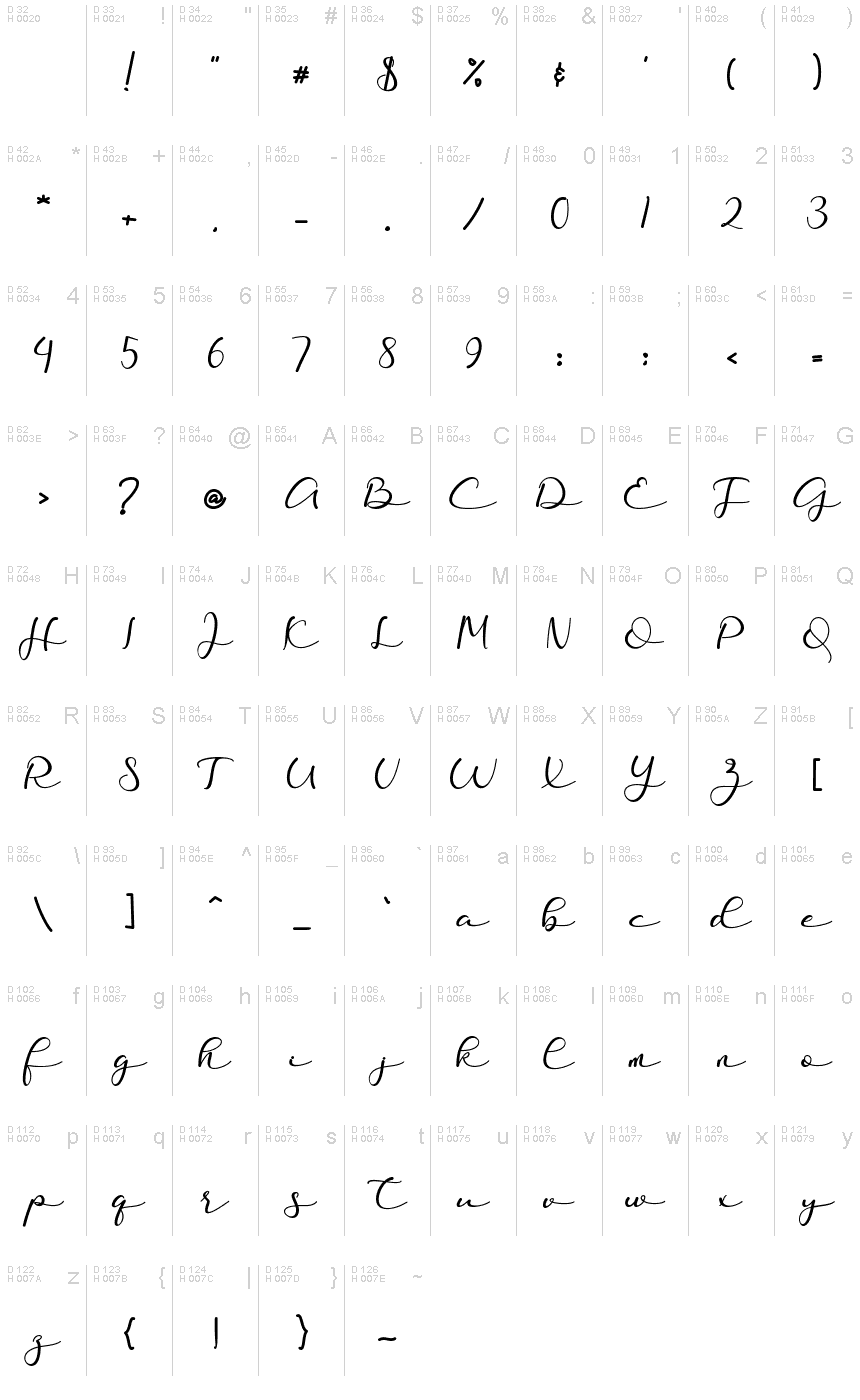
Better Us Better Us
Better Us is a charming handwritten font that exudes warmth and personality. Designed by Tiny Hand Letter in 2021, this semi-light typeface boasts a semi-expanded width for added legibility and impact. Suitable for a variety of projects, from wedding invitations to social media graphics, Better Us adds a personal touch that will make your message stand out. The playful yet polished style of this font is perfect for branding and marketing materials, as well as blog posts and editorial layouts. Embrace the Better Us font family to elevate your designs with its unique flair!